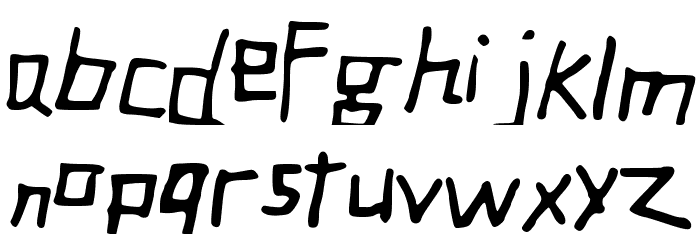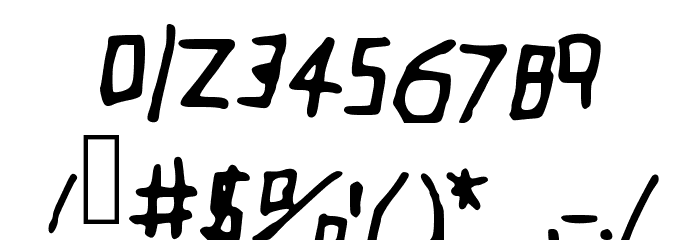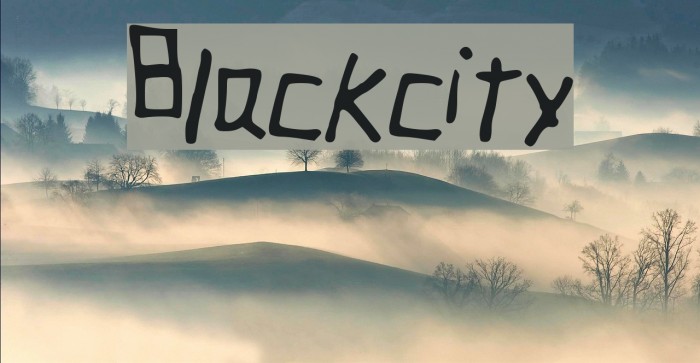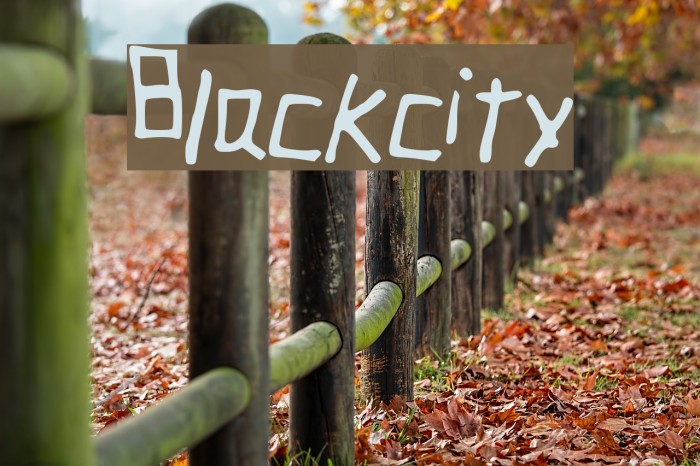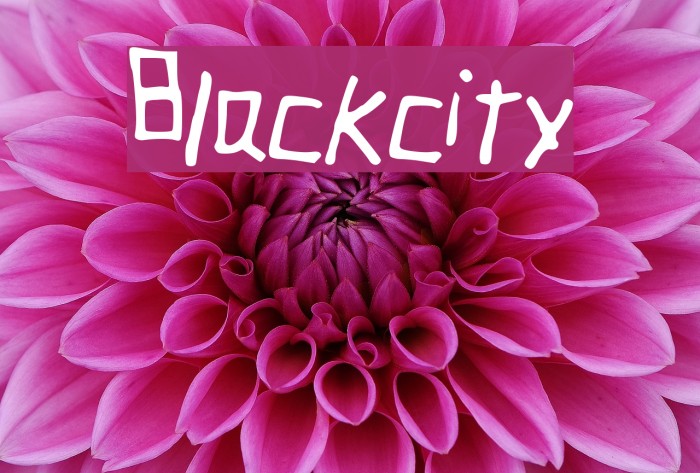
Blackcity Font
This font features a bold and expressive style with a hand-drawn appearance. The characters are irregular and have a playful, almost graffiti-like quality. The uppercase letters are tall and narrow, while the lowercase letters maintain a consistent height, adding to the font's unique charm. Numbers and special characters follow the same quirky design, making this font ideal for creative projects. The strokes are uneven, giving it a raw and energetic feel, perfect for designs that require a touch of personality and flair.
A bold, hand-drawn font with a playful, graffiti-like style.
- Proposed Projects: Ideal for street art designs, posters, album covers, and creative branding projects.